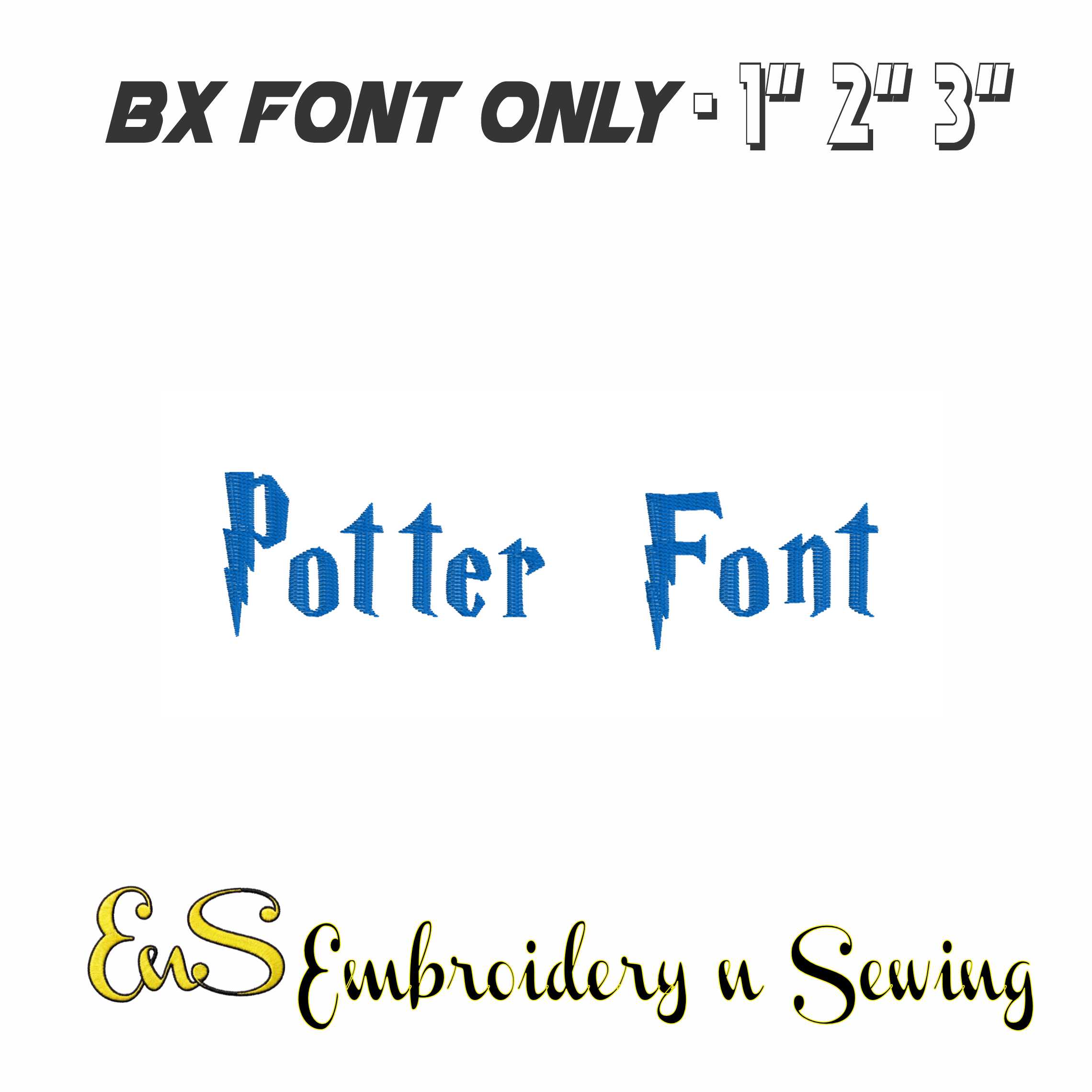
Potter Font
A blue gothic lettering font with lightning-bolt character, made for names and words that need a fantasy edge.
Add storybook drama to names, monograms and short words with this Potter Font design. The sample lettering uses blue gothic serif forms with sharp, lightning-bolt styling that gives ordinary text a darker, fantasy feel. It suits makers stitching for readers, themed gifts and anyone who likes decorative lettering that looks more magical than plain block type.
Because it is offered in smaller 2" to 3" sizes, it works well where lettering needs to stay neat and readable without taking over the whole item. Try it on a sweatshirt chest, a tote bag pocket, a book sleeve, a pencil case or the corner of a cushion. The narrow, pointed shapes give simple fabrics like cotton, denim and canvas a more dramatic finish, especially when you want a name or title to be the main feature.